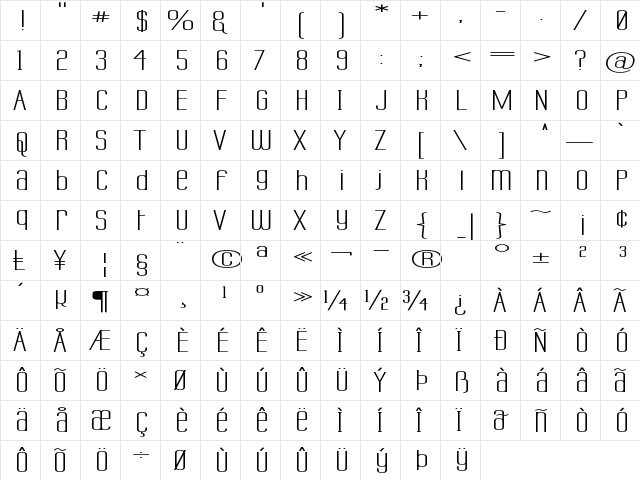
Labtop Unicase Superwide Regular
Design Context for Labtop Unicase Superwide Typeface
Labtop Unicase Superwide takes a measured approach to typography — its balanced proportions and neutral character make it a reliable workhorse for both digital and print work.